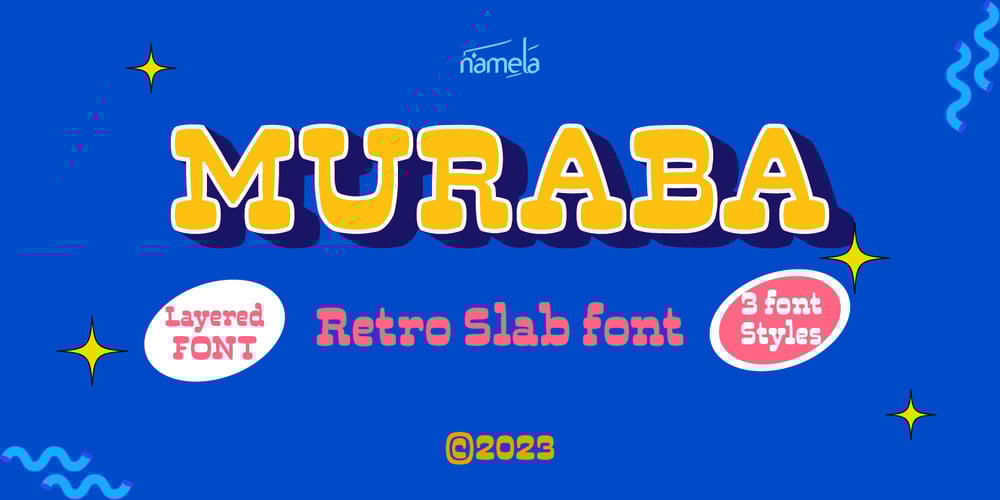
Muraba Font Family was designed by Nur Syamsi, Bustanul Arifin and published by NamelaType. Muraba contains 3 styles and family package options. Muraba Font is a one-of-a-kind, bold vintage serif display typeface, defined by its distinctively thick, squared-off serifs that offer decorative flair.This versatile typeface is ideal for various applications, including logos, headers, and display text